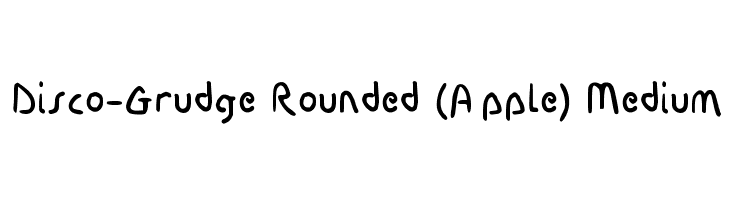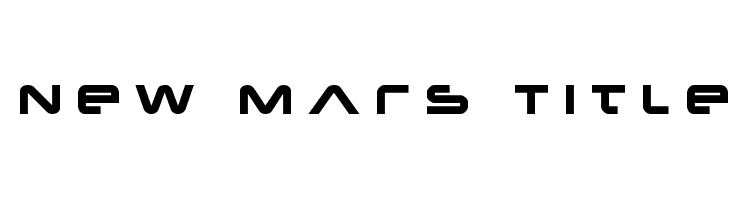
A playful, hand-drawn font with bold, irregular strokes and a comic book feel.
An artistic font resembling ancient cave drawings with unique, decorative characters.
A casual, handwritten font with a playful and informal style.
A bold, jagged, and italicized font with a distressed, edgy style.
A bold, geometric font with a futuristic and digital aesthetic.
A classic serif font with medium weight and refined serifs, offering elegance and readability.
Futuristic italic font with gradient-striped design.
A playful, bold font with a comic-like, hand-drawn style.
An ornate and decorative font with intricate swirls and flourishes.